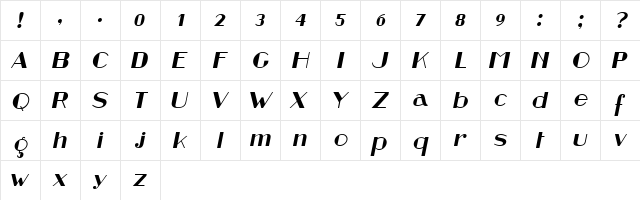
Retrospective Italic
Design Context for Retrospective Typeface
Retrospective wears its vintage influences proudly, with letterforms that recall mid-century signage, classic packaging, and nostalgia-driven design. The dynamic lean of this cut emphasises speed and emphasis in any layout.
Font Pairing: Combine Retrospective with a simple slab or neutral sans — period-accurate companions reinforce the vintage feel without competing for attention.
Pro Tip: Lean into Retrospective's period character by pairing it with aged paper textures, muted colour palettes, and vintage illustration styles.